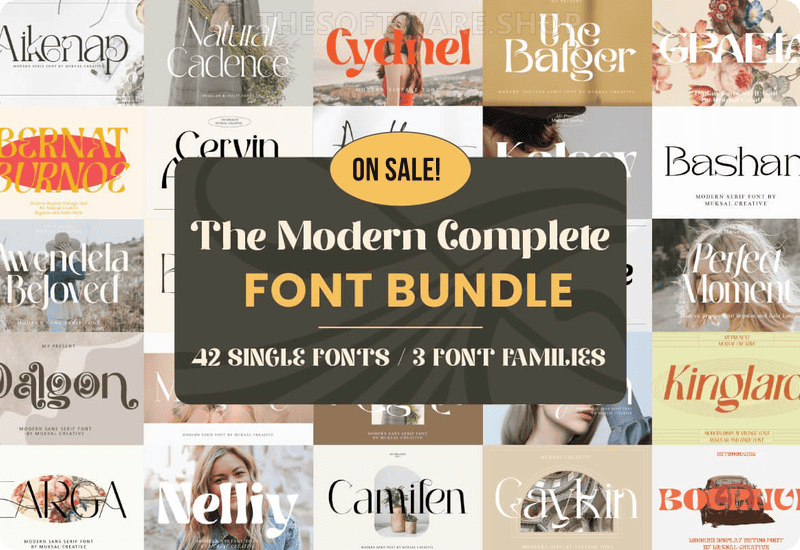
This all-encompassing bundle features 45 diverse fonts – from the nostalgic charm of retro to the sleek appeal of sans-serif – crafted by the talented Muksal Creative. Perfect for freshening up your spring projects, this offer comes with a Commercial License to give your professional endeavors an edge.
What is The Modern Complete Font Bundle?
The Modern Complete Font Bundle is a curated collection of 45 premium fonts, meticulously designed by Muksal Creative. It covers a broad spectrum of styles to meet every design need. With retro, script, sans-serif, and more at your fingertips, this bundle is an essential addition to any designer’s toolkit.
- Aikenap Serif Font
- Awendela Beloved Sans Serif Font
- Feragie Sans Serif Font
- Dirndle Sans Serif Font
- Dalgon Sans Serif Font
- The Bafger Display Font
- Augan Sans Serif Font
- Bashan Serif Font
- Etalene Serif-Schriftarten Schriftart
- Hegiena Serif Font
- Balliniy Serif Font
- Earga Sans Serif Font
- Gengich Serif Font
- Disley Display Font
- Simply Conception Serif Font
- Egalie Display Font
- Hiylard Display Font
- Kalsey Serif Font
- Anilley Melia Script & Handwritten Font
- Natural Cadence Serif Font
- Perfect Moment Serif Font
- Unknow Display Font
- Gaylen Sans Serif Font
- Regan Sans Serif Font
- Mogiena Serif Font
- Archare Serif Font
- Ghaden Serif Font
- Rangedit Display Font
- Flowchart Serif Font
- Farench Display Font
- Nelliy Display Font
- Geefray Sans Serif Font
- Merdian Serif Font
- Kinglard Display Font
- Ransley Serif-Schriftarten Schriftart
- Camilen Serif Font
- Gaykin Fontes Serif Fonte
- Bernat Burnoe Display Font
- Graela Display Font
- Refanea Sans Serif Font
- Garetc Serif Font
- Bournue Serif Font
- Malden Fuentes Serif Fuente
- Cervin Asenoy Display Font
- Cydnel Display Font